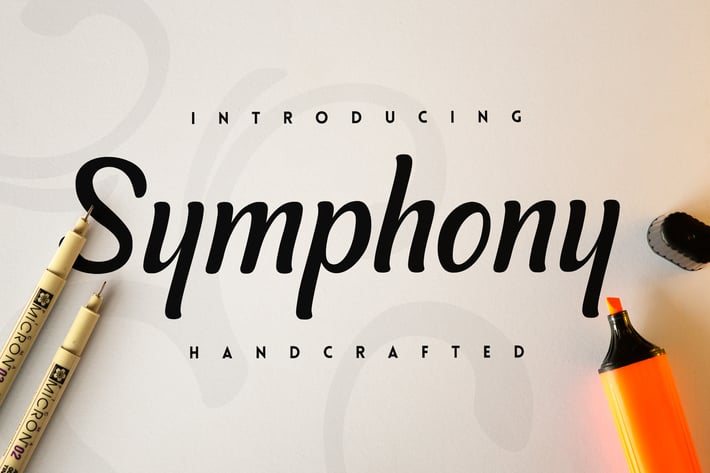
Symphony Script Font
Symphony is a modern script typeface. Symphony comes with the base glyphs and alternate uppercase characters as show in the preview images.
Designed to look good both at small and big sizes Symphony is perfect for web headlines, books, lettering compositions and many more.